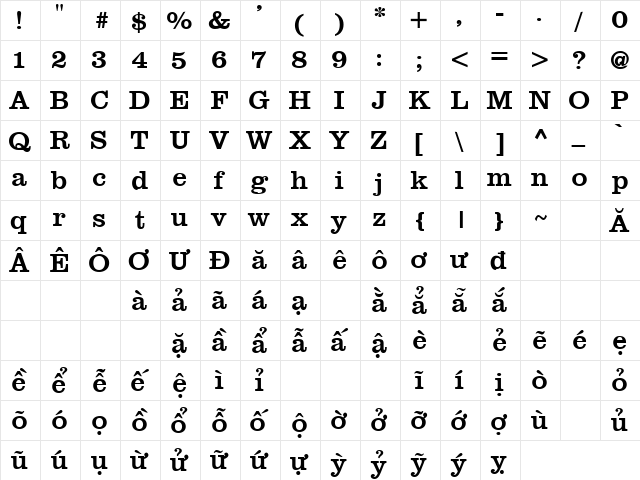
.VnClarendon Normal
Design Context for .VnClarendon Typeface
.VnClarendon features prominent, blocky serifs that give it a confident, grounded presence — equally at home in editorial settings and bold branding work.
Suited to magazines, political campaign materials, bold packaging, and any setting where authority matters.
Pro Tip: Use .VnClarendon for headlines and subheadings where its slab serifs can make an impression. It also holds up well in mid-size body copy thanks to its sturdy construction.